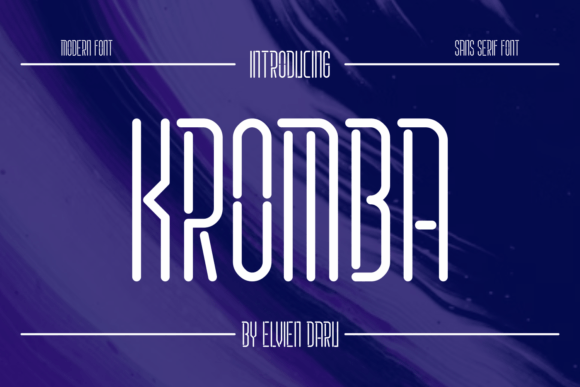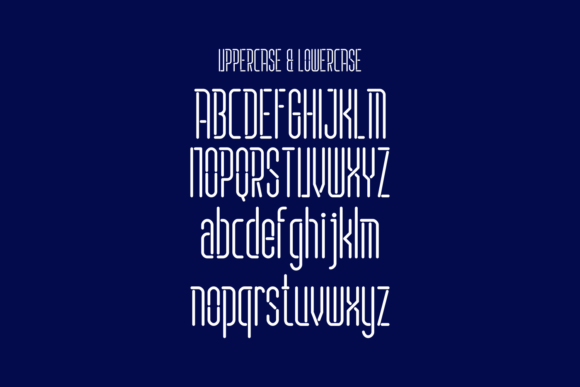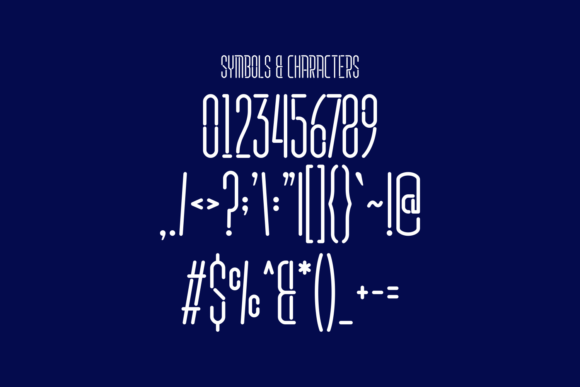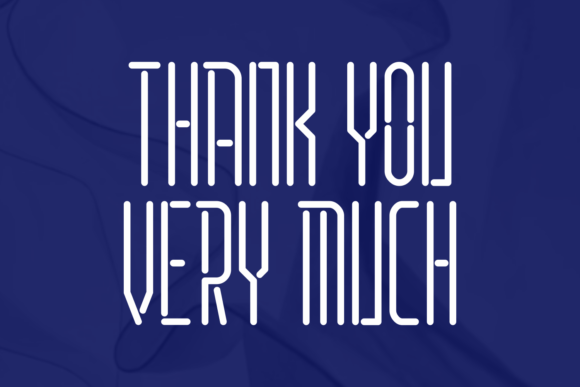
Introduction to Kromba Font
Imagine you’re in the midst of a creative project, and the perfect font is the missing piece that brings your design to life. You’re scrolling through your favorite font libraries, searching for that elusive combination of style and sophistication. And then, you stumble upon Kromba Font – a sleek and modern sans-serif font that effortlessly combines simplicity with high-quality design.
As a designer, you know the importance of having a reliable design resource like Kromba Font at your disposal. With its transparent background and clean lines, this font is perfect for creating a polished and professional look that elevates any project. Whether you’re designing a website, crafting a logo, or enhancing your documents, Kromba Font’s versatility ensures it’s a stylish choice for any application – and it’s available for a free download, making it an invaluable asset for any creative project.
- High-quality design: Kromba Font offers a unique and stylish look that can elevate any creative project.
- Transparent background: This feature allows for seamless integration with any design resource, making it easy to use in various design projects.
- Unique characteristics: Kromba Font features a modern and sleek design, perfect for creative projects that require a touch of sophistication.
- Easy to use: Kromba Font is designed to be user-friendly, making it an excellent choice for designers of all skill levels.
I recently had the chance to work with the Kromba Font, and I must say it’s a solid addition to any designer’s toolkit. One of the standout features is its high quality and versatile design, making it perfect for a wide range of creative projects.
One of the things I appreciate most about the Kromba Font is its transparent background, which allows for seamless integration with any design resource. Whether you’re working on a graphic design project or a digital product, this font is sure to deliver.
- ✨ Transparent background for easy integration
- ⚠️ Limited character set, which may not be suitable for longer text-based projects
Overall, I’m impressed with the Kromba Font, and I would definitely recommend it to designers looking for a high-quality, versatile font for their next creative project.
To get the most out of the Kromba Font, experiment with different font sizes and styles to create a visually appealing design. You can also use it in combination with other design resources to enhance your creative project.
The Kromba Font is suitable for a wide range of applications, including social media graphics, presentations, documents, and more. Its high-quality design and transparent background make it a valuable resource for designers and creatives.